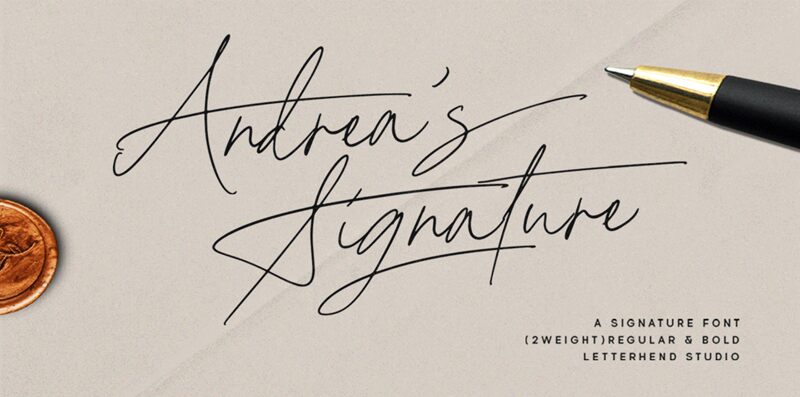
Andreas Signature font, designed by Letterhend Studio, is a light handwritten font that embodies elegance and sophistication. Its artistic and flowing design lends itself to a refined and personal touch, making it perfect when users aim for a unique look. This font is free to use, allowing designers everywhere to create magnificent work using its delicate style.
Use Andreas Signature as a signature on minimal branding ideas or spread it amongst invitations cards like wedding or baby shower invitations. The finest way to experience this resource though is in beauty and self-care product packaging designs or even fashion related items like clothes, hang tags, etc.